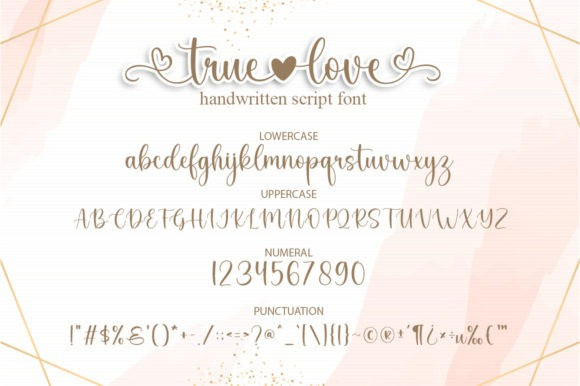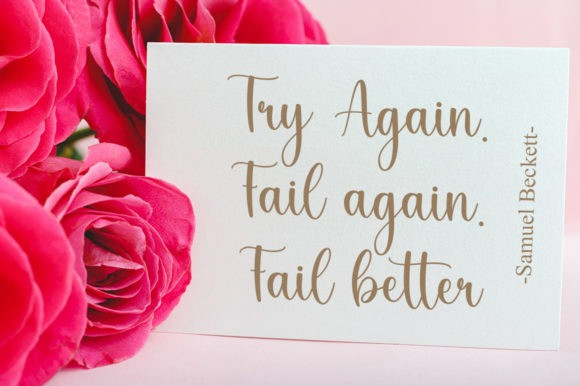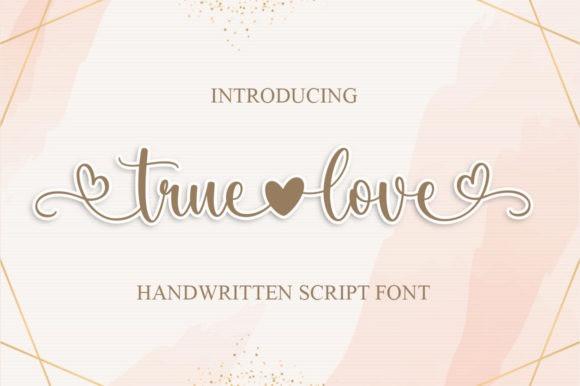
True Love Font
True Love Font is a lovely and flowing handwritten font. It has beautiful and well-balanced characters, and as a result, it matches a wide pool of designs. This font is PUA encoded, which means you can access all of the glyphs and swashes with ease!